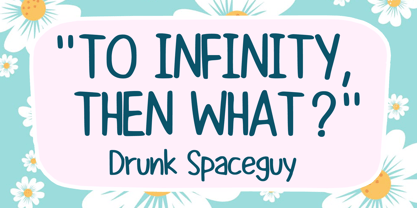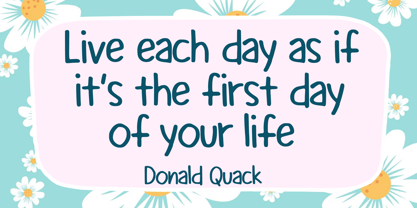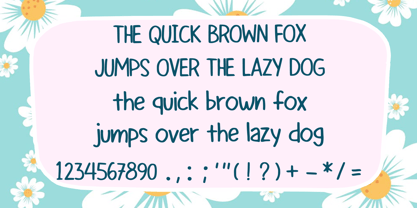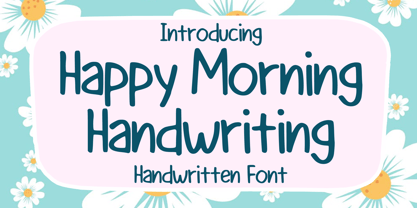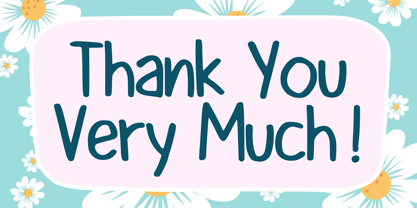
Happy Morning Handwriting
by Mvmet
The Happy Morning Handwriting Font Family was designed by Gabriel Valentinus and published by Mvmet. Happy Morning Handwriting contains 1 styles. More about this family
Unleash your creative potential with Happy Morning Handwriting - a vibrant and whimsical handwritten font. Perfect for bringing an energetic flair to any design venture, it's ideal for a variety of mediums - from standout stickers and t-shirt graphics to sleek logos and dazzling book covers. With its dynamic appeal, Happy Morning Handwriting is also an excellent choice for comics and cartoon illustrations. Experience a refreshing way to communicate your ideas and elevate your designs with this unique and versatile font!
Designers: Gabriel Valentinus
Foundry: Mvmet
Mvmet is an Indonesia-based font studio which began making fonts in early 2020. Mvmet strives to make fonts fun and accessible for both the average computer user and professional designers, with original experimental fonts and affordable trend-setting commercial fonts. Mvmet also creates custom fonts for companies who want exclusive rights and a specific design for a typeface. Clients who have used Mvmet’s custom font services include some company in Indonesia and abroad.